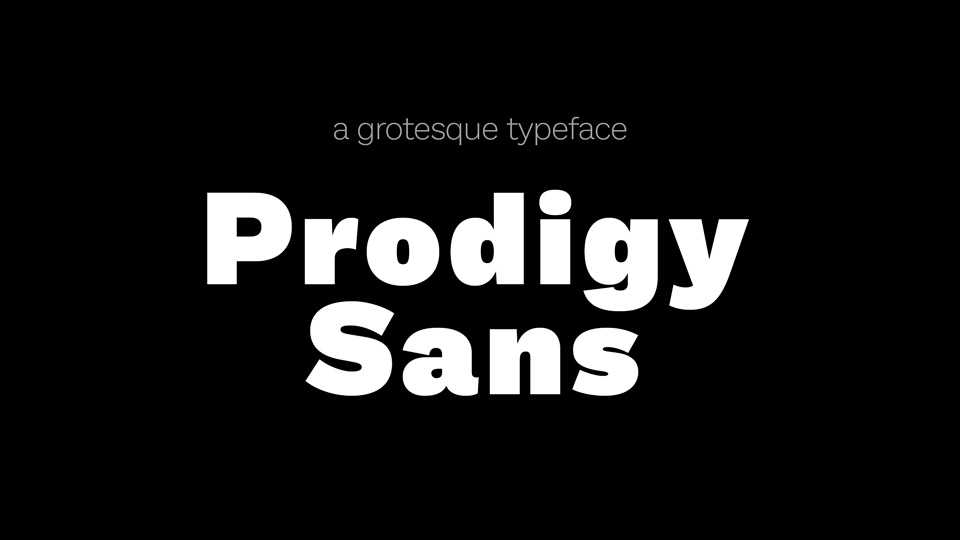
Download Prodigy Sans typeface, a grotesque font family in 9 weights based on Work Sans and commissioned by DesignStudio for Prodigy Education.
Designer: Wei H